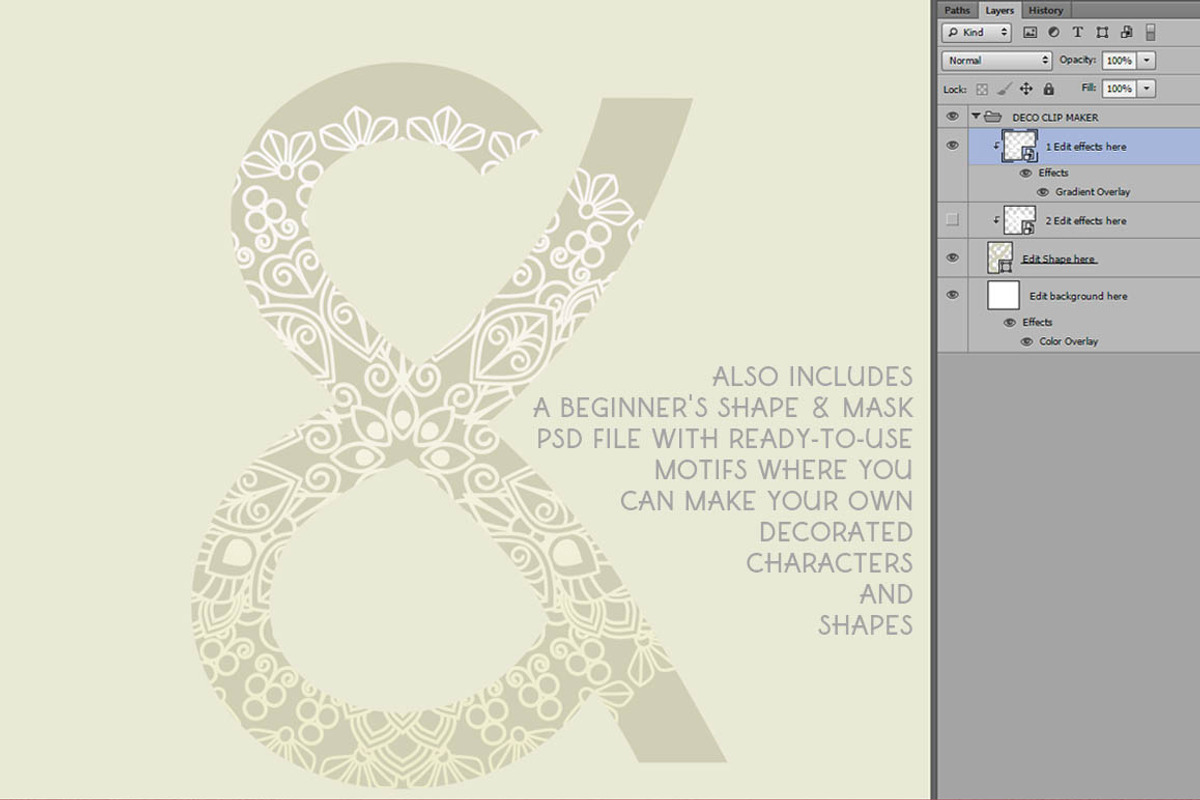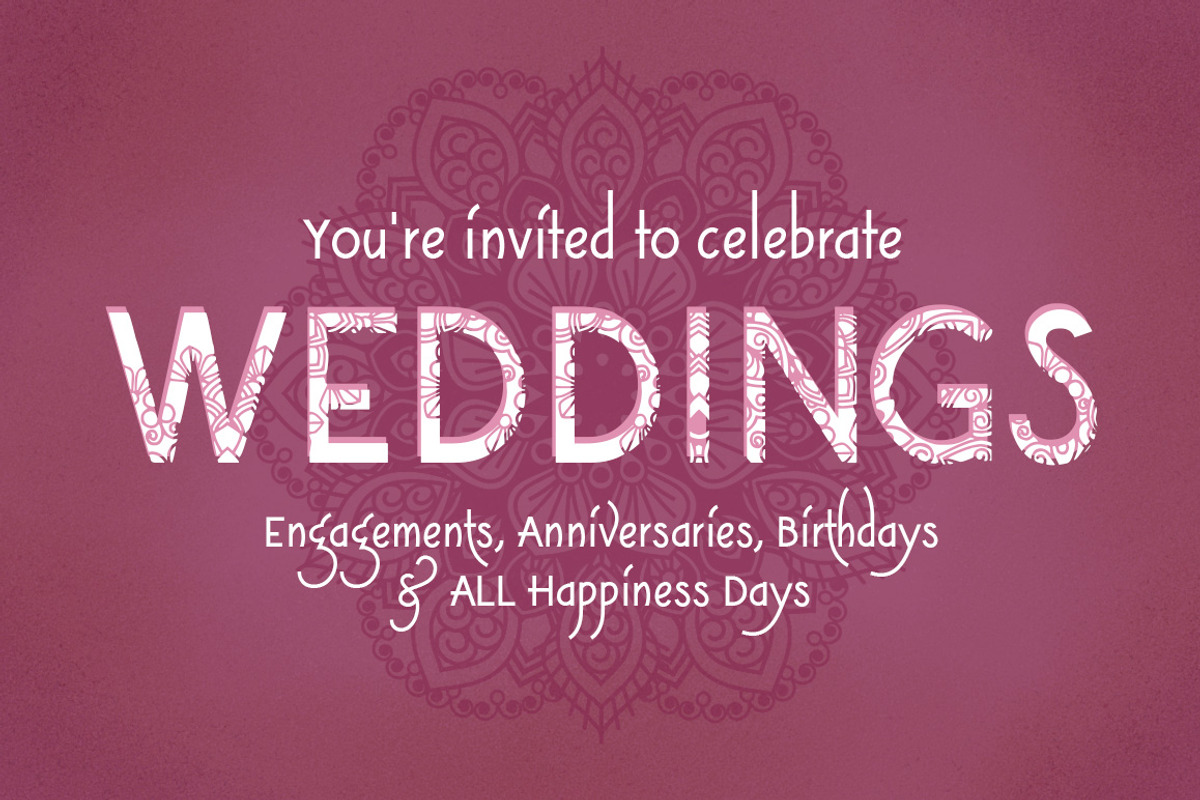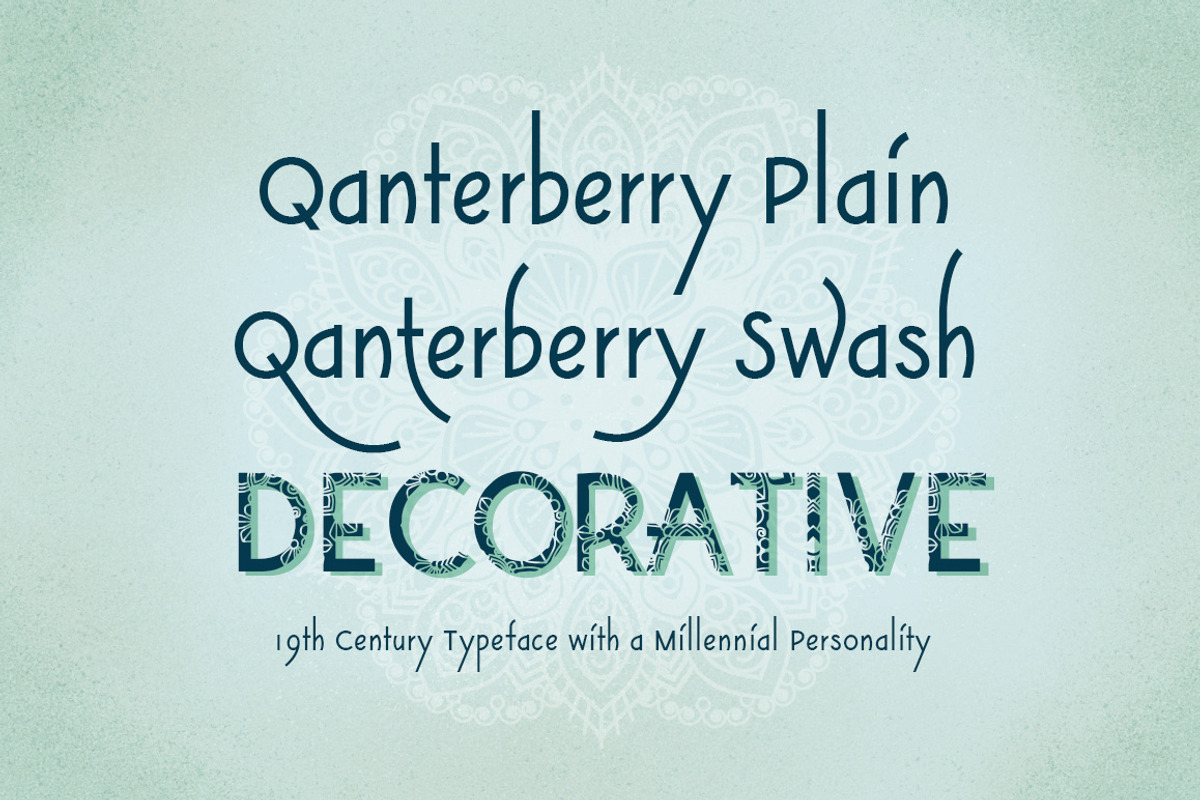
Mandala and Font Family-Qanterberry
Mandala and Font Family-Qanterberry by JoZOO is a font selected for branding, posters, packaging, typography.
- Qanterberry Deco Regular
- Qanterberry Plain Regular
- Qanterberry Swash Regular
Why Mandala and Font Family-Qanterberry is worth a look
Mandala and Font Family-Qanterberry by JoZOO fits naturally into Branding, posters, packaging, typography.